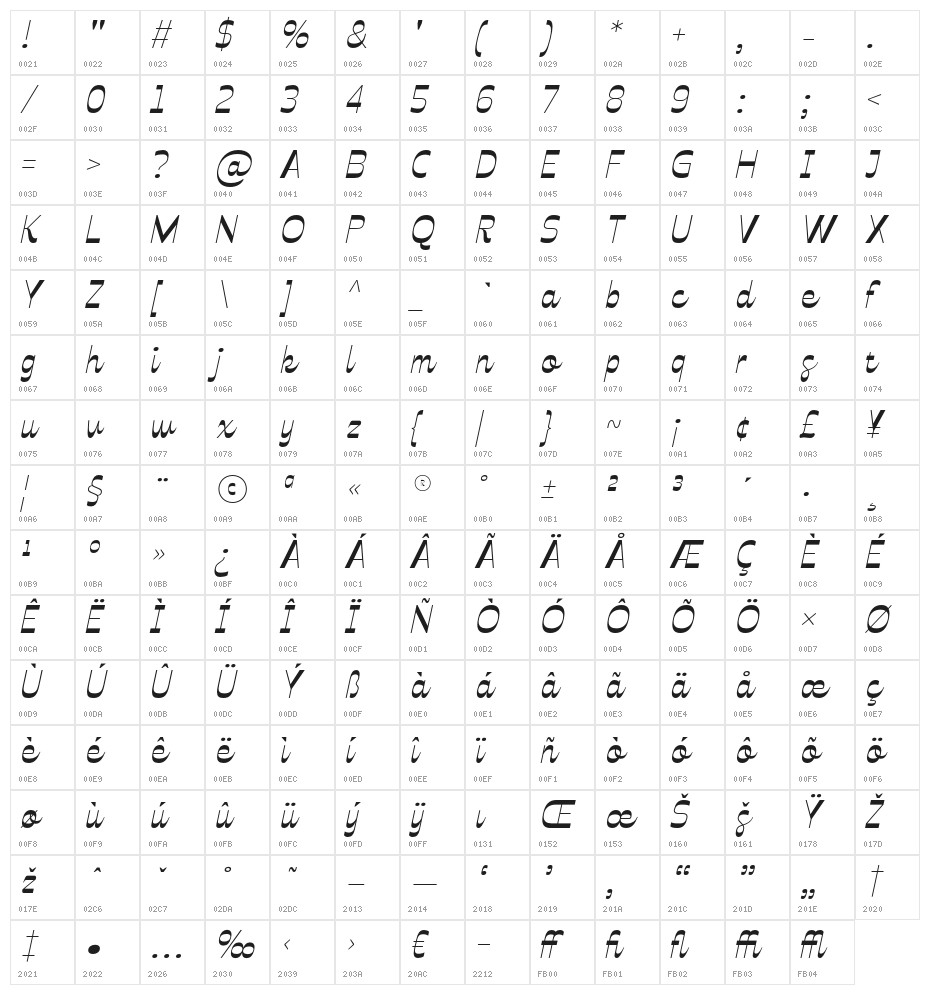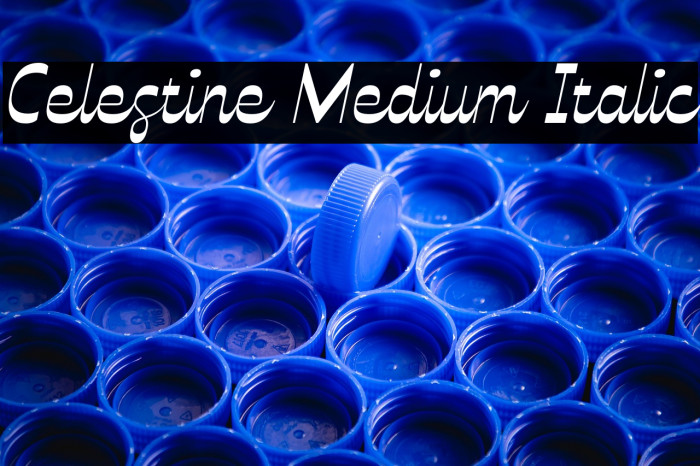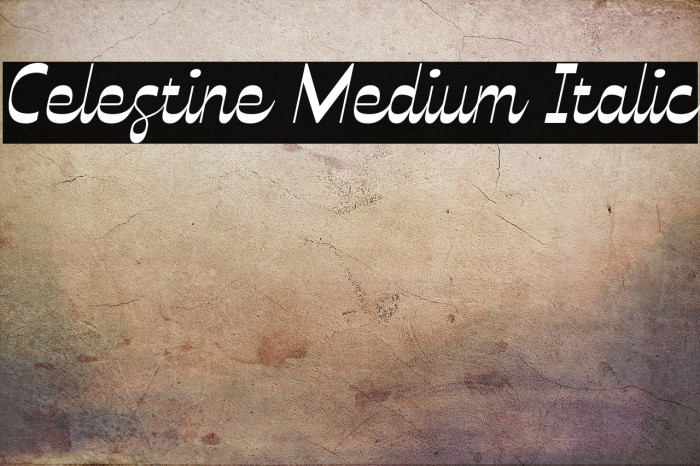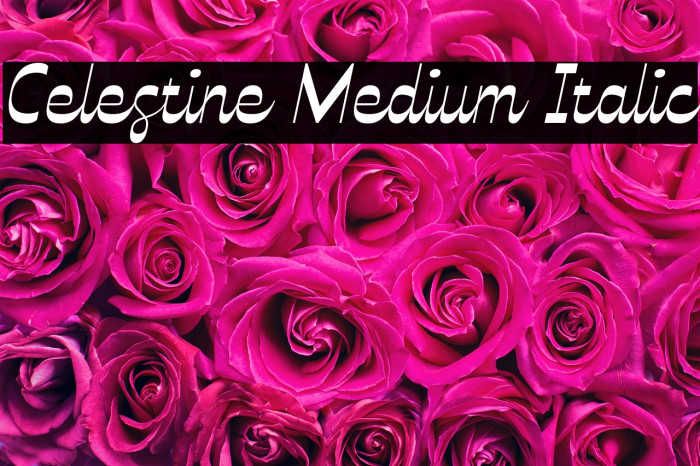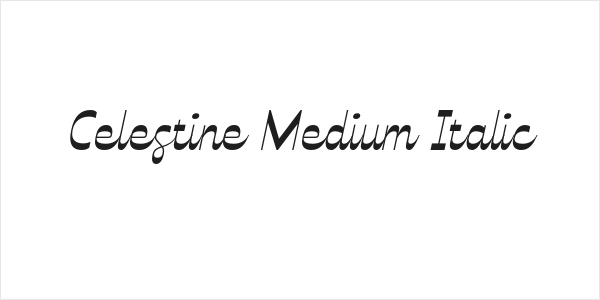
Celestine Medium Italic Font
Celestine Medium Italic Description
This font features a sleek and modern italic style with a medium weight, offering a dynamic and fluid appearance. The characters are slightly slanted, providing a sense of motion and elegance. The uppercase letters are bold and assertive, while the lowercase letters maintain a smooth and consistent flow. The numerals are clear and well-defined, making them easily readable. Special characters are designed with the same attention to detail, ensuring they blend seamlessly with the rest of the typeface. The overall design is versatile, suitable for a variety of applications.
| Proposed Projects | Ideal for branding, editorial design, advertising, and digital media projects. |